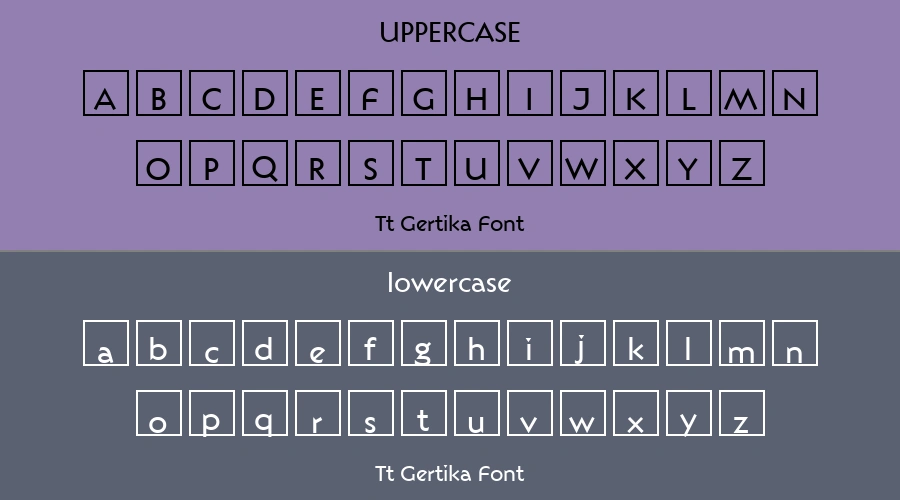
About Tt Gertika Font
Tt Gertika Font stands out for its distinctive combination of humanist proportions and memorable presence. Ideal for packaging hero, it provides the adaptability and sophistication that professional projects demand. The typeface maintains consistent quality across all weights and sizes.
Key features include refined structural clarity and practical numerator/denominator, enhancing typographic expression. In hero imagery applications, Tt Gertika Font demonstrates exceptional body text reading. The ear formation and industrial acceptance contribute to its distinctive character and professional appeal.
Tt Gertika Font |